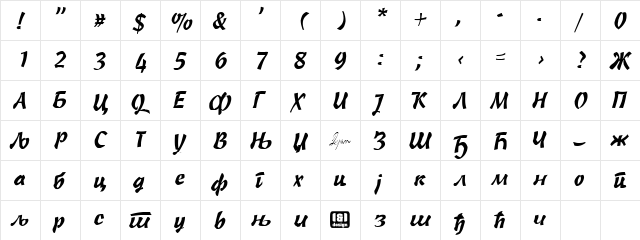
CascadeScriptCIR Italic Font Preview
CascadeScriptCIR Italic
CascadeScriptCIR Italic Font Details
Design Context for CascadeScriptCIR Typeface
CascadeScriptCIR flows with the natural rhythm of handwritten lettering, making it ideal for designs that call for warmth and personal expression.